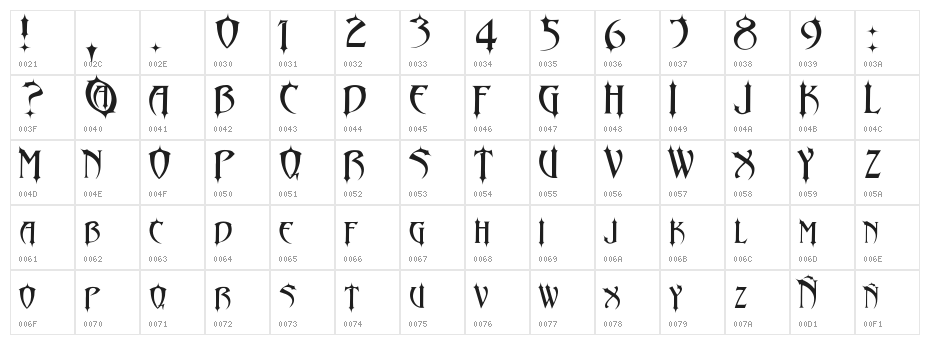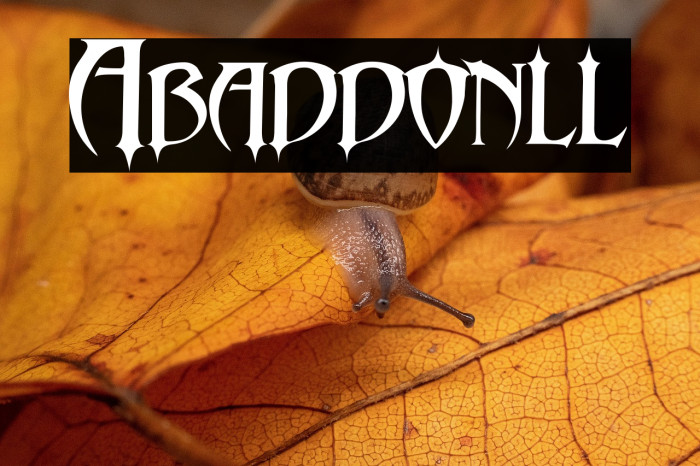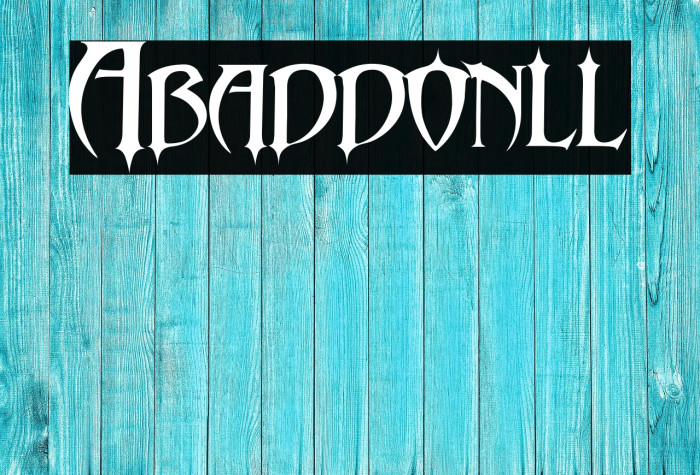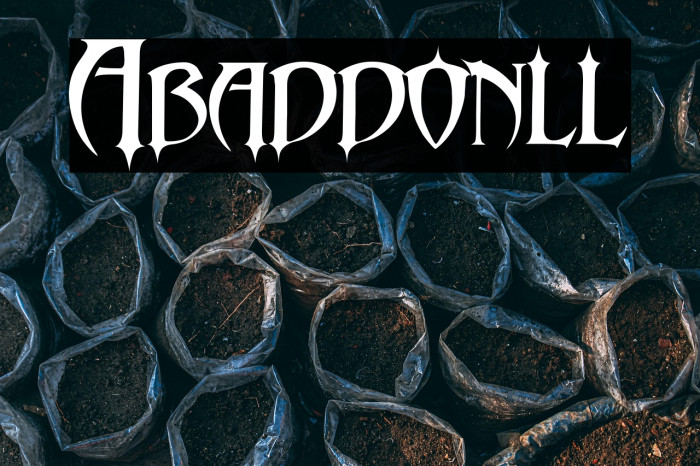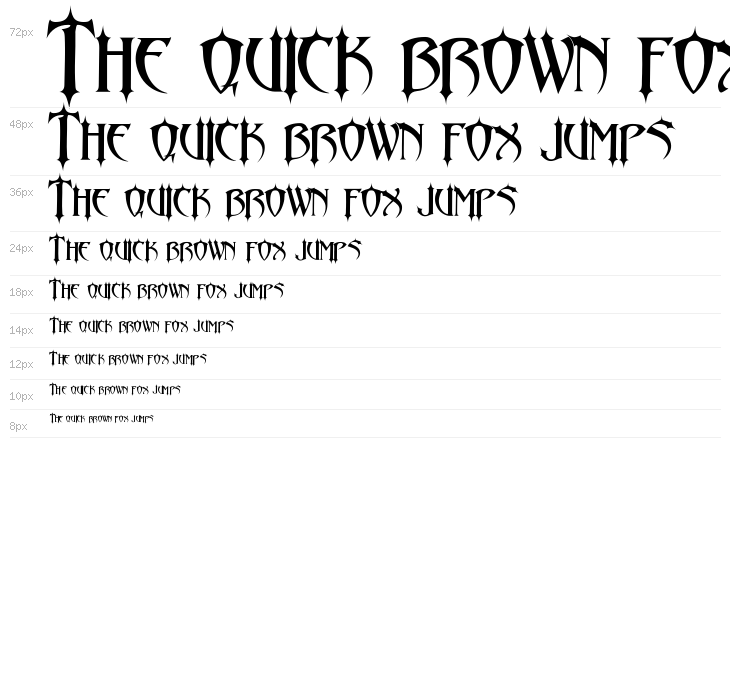
Abaddon-ll Font
Abaddon-ll Description
This font features a striking, gothic-inspired design with sharp, angular edges and pointed serifs that evoke a sense of drama and intensity. The uppercase letters are bold and commanding, while the lowercase letters maintain a consistent style with slightly more curvature. The numerals are distinct and maintain the same gothic flair, making them stand out. The special characters are designed to complement the overall aesthetic, adding to the font's unique personality. This font is ideal for projects that require a bold, attention-grabbing typeface with a medieval or fantasy theme.
Overall StyleGothic, Dramatic
Proposed ProjectsPerfect for fantasy book covers, gothic-themed posters, video game titles, and branding for alternative or edgy products.